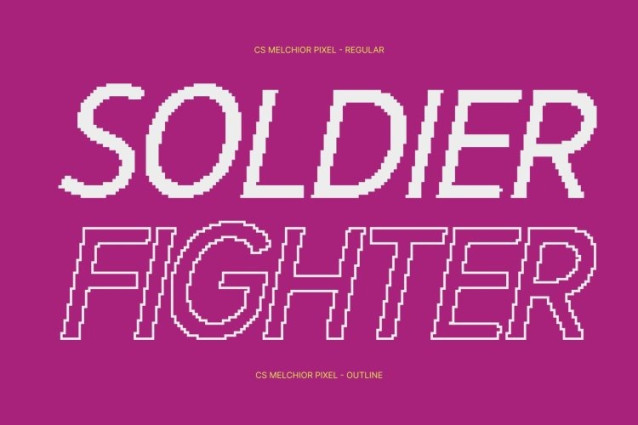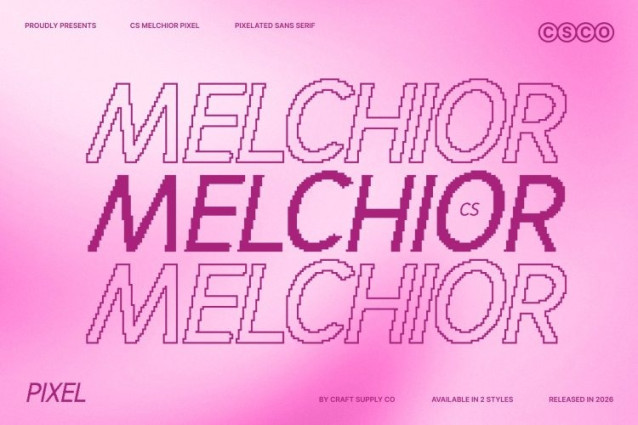
CS Melchior Pixel Font
CS Melchior Pixel Font This is a contemporary sans serif font defined by clean geometry, sharp lines, and carefully refined pixel-inspired detailing. Its precise angles and balanced curves create a structured, modern appearance that blends minimalism with a subtle digital edge. The result is a professional font that feels crisp, sophisticated, and technologically aware.
Highly Readable with Controlled Pixel Accuracy
Designed with meticulous attention to proportion and spacing, this font maintains excellent readability across all sizes and formats. The pixel construction is integrated with restraint, enhancing clarity rather than distracting from it. Each character remains consistent and well-balanced, making the font reliable for both headlines and extended text.
Professional Presence for Corporate and Modern Branding
Perfect for corporate branding, websites, dashboards, and professional communication, this font communicates trust, confidence, and modern efficiency. Its geometric precision and digital undertone make it ideal for brands that want to project innovation without sacrificing professionalism.
Versatile for Clean, Efficient, and Digital-First Visuals
From editorial layouts and user interfaces to signage, packaging, and corporate identities, this font adapts seamlessly across design environments. Its refined structure and pixel-enhanced clarity ensure a consistent, modern, and elegant visual language.